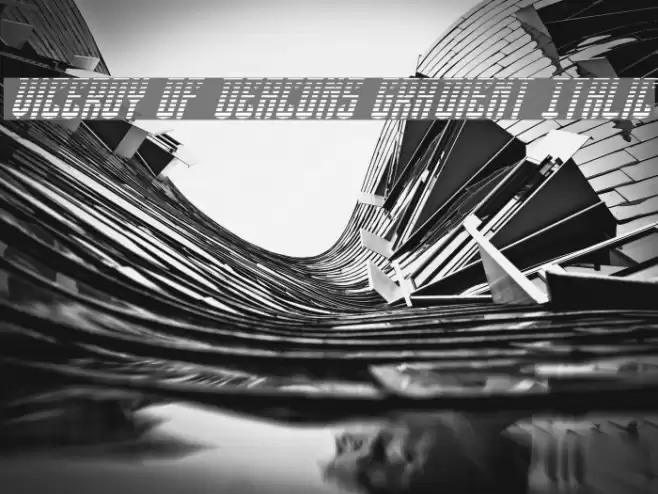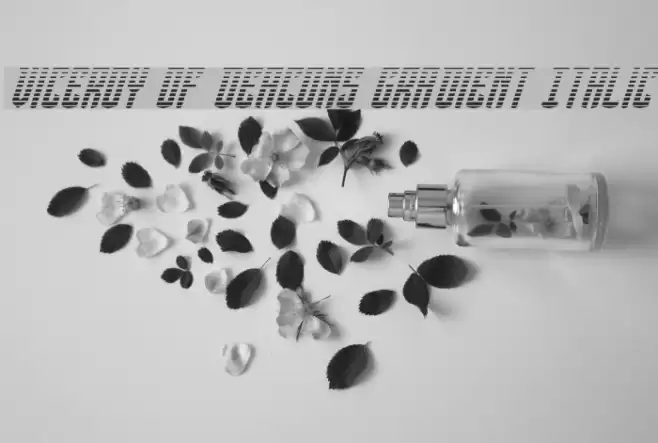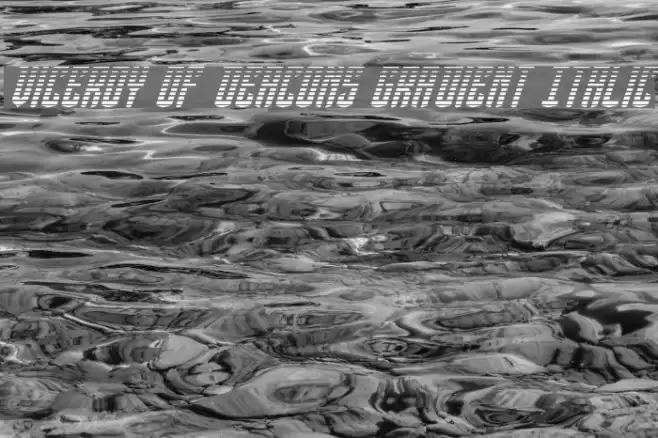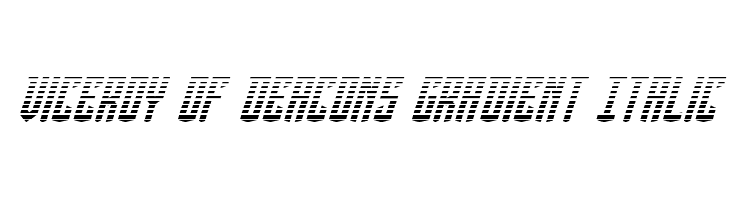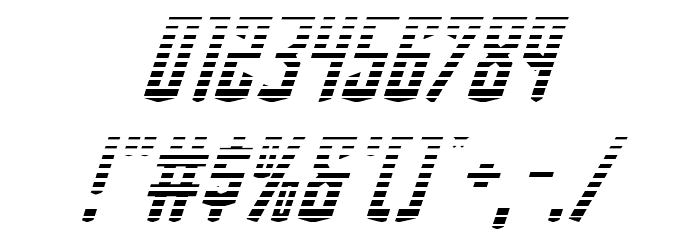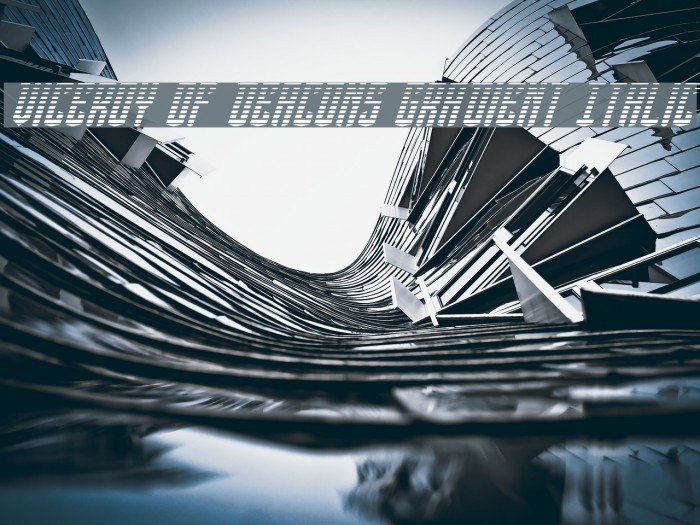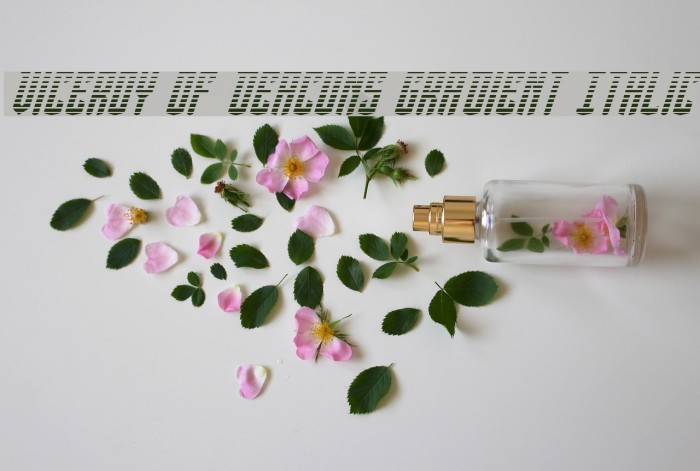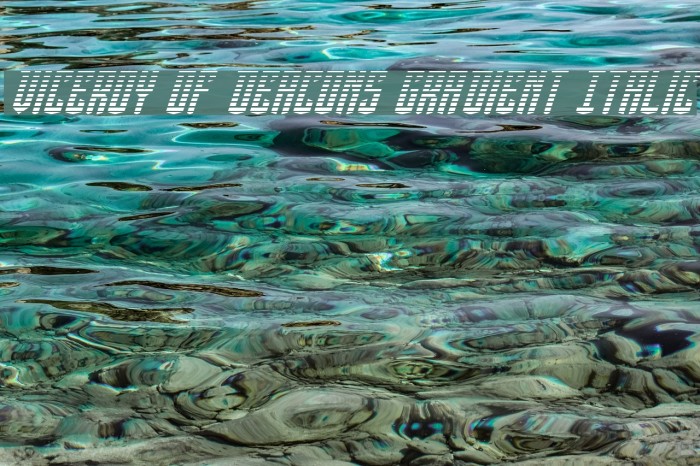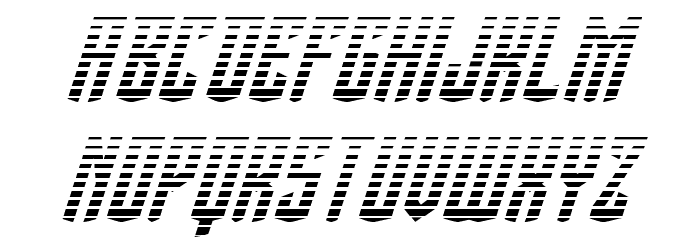
Viceroy of Deacons Gradient Italic Font
Viceroy of Deacons Gradient Italic Description
This font features a bold, dynamic style with a distinct gradient effect that gives it a sense of movement and depth. The italicized slant adds to its energetic and modern appearance, making it stand out in any design. Each character is composed of horizontal lines that create a unique visual texture, enhancing its decorative appeal. The uppercase and lowercase letters maintain a consistent style, while the numerals and special characters complement the overall aesthetic. This font is ideal for projects that require a futuristic or edgy look.
A bold, italicized font with a gradient effect and dynamic style from Modern fonts.
- Proposed Projects: Ideal for futuristic designs, sports branding, video game titles, and dynamic posters.